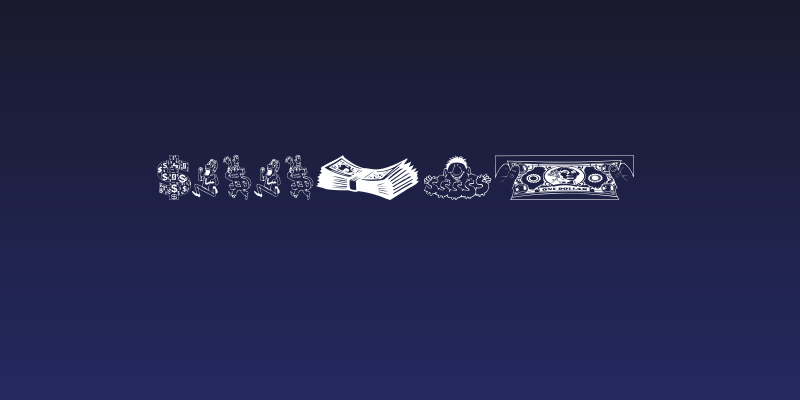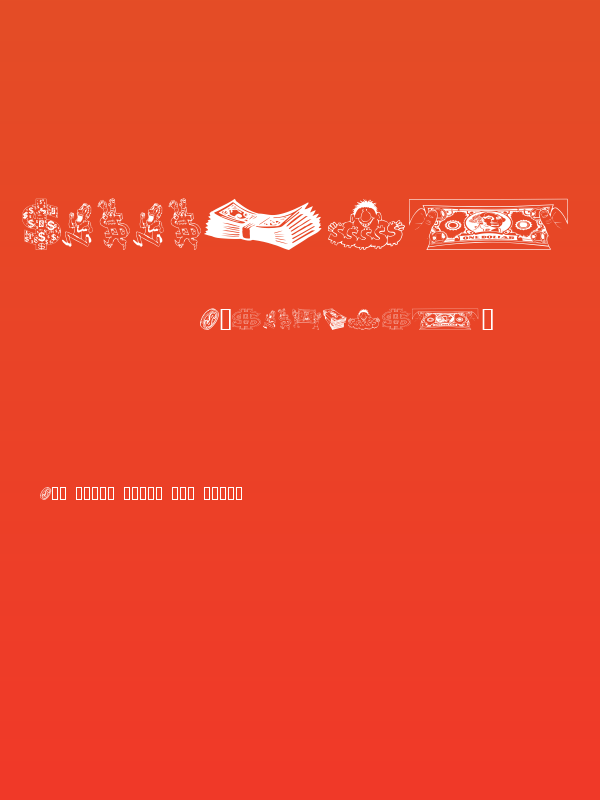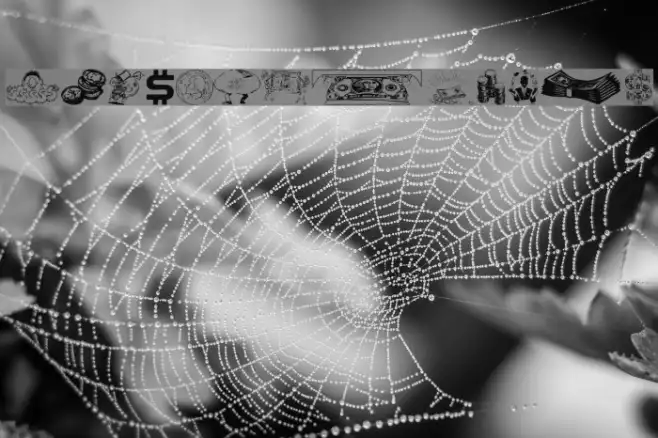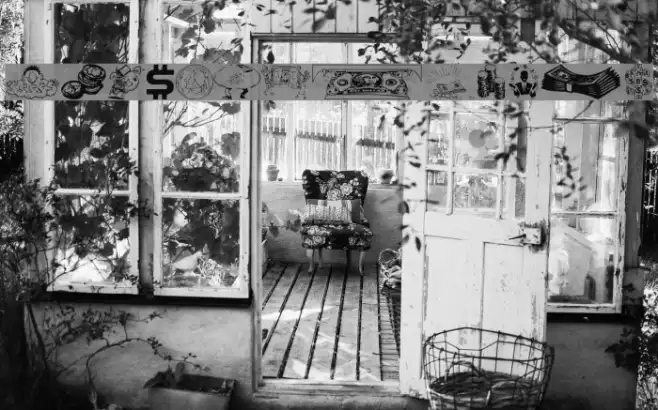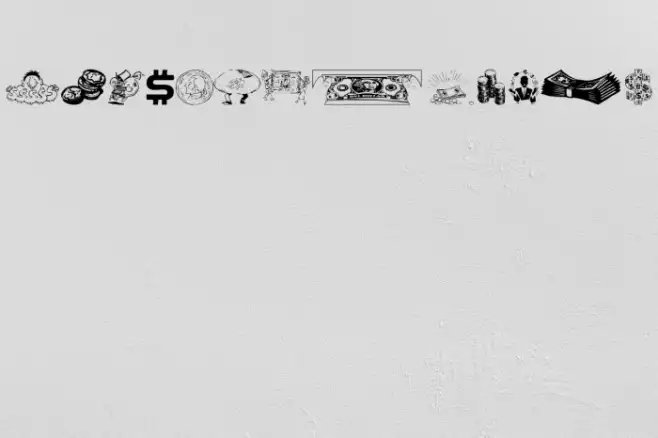
Moolah Font
Moolah Description
This is a decorative font that incorporates playful and whimsical elements related to money and finance. Each character is represented by an illustration of coins, bills, or financial symbols, making it highly thematic and visually engaging. The font is designed to capture attention with its unique and creative style, perfect for projects that require a fun and lighthearted touch. The characters are detailed and intricate, showcasing a variety of monetary motifs that add a distinctive flair to any design.
| Use Case | Logos, Posters, Novelty items |
| Proposed Projects | Ideal for financial-themed posters, playful advertisements, children's educational materials about money, and novelty designs. |